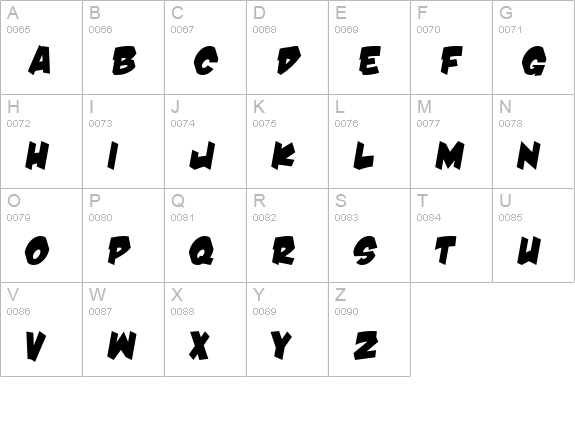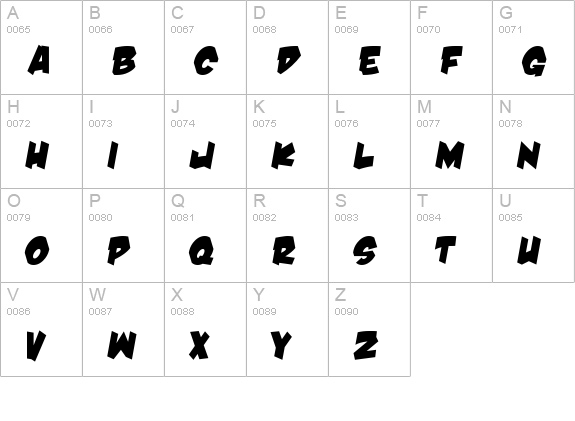
Damn Noisy Kids Font Details
Introducing Damn Noisy Kids font, a playful and vibrant typeface that adds a touch of youthful exuberance to any project. With its quirky and irregular letterforms, this font is perfect for capturing the energy and spontaneity of children's artwork, making it an ideal choice for book covers, posters, invitations, and more. Damn Noisy Kids font is designed to evoke a sense of fun and creativity, with its bold and expressive characters that seem to dance across the page. Each letter has been carefully crafted to have a hand-drawn appearance, giving your designs a unique and personal touch. What sets Damn Noisy Kids font apart is its versatility. Whether you're working on a project for a school, a children's event, or simply want to inject a bit of playfulness into your design, this font is sure to make a statement. Its bold and vibrant nature ensures that your message will be loud and clear, catching the eye of viewers and captivating their attention. But what makes Damn Noisy Kids font even more appealing is that it is available for free download at FontsMarket.com. Yes, you read that right - this font can be yours without spending a dime. Simply head over to FontsMarket.com and start exploring the world of Damn Noisy Kids font today. So, if you're looking to infuse your designs with a youthful and energetic vibe, look no further than Damn Noisy Kids font. Download it for free at FontsMarket.com and let your creativity run wild. Get ready to make some noise and create designs that truly stand out in the crowd.